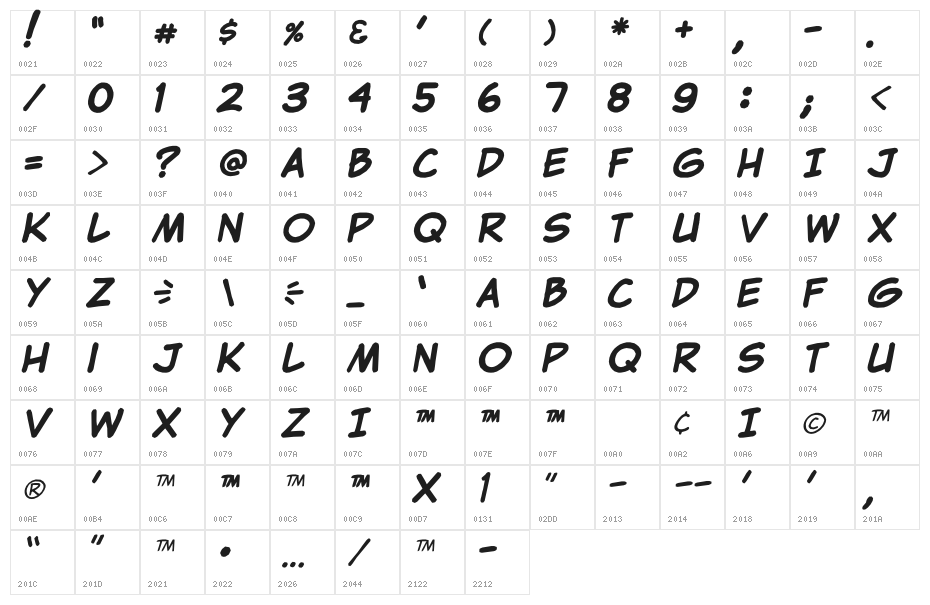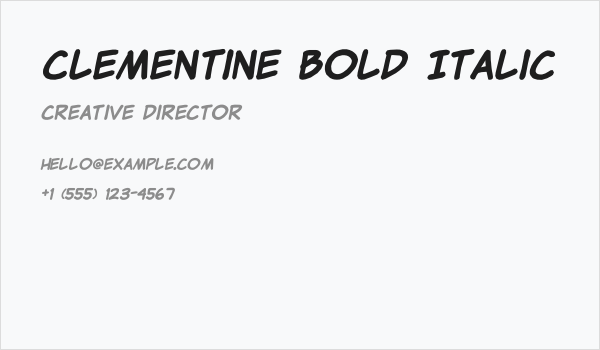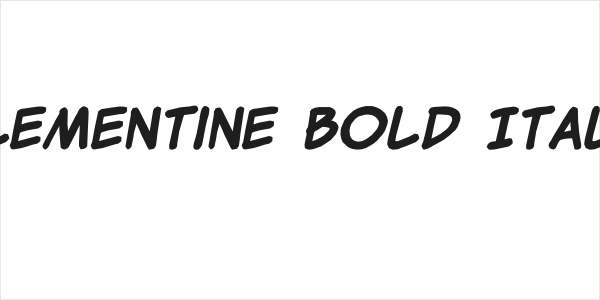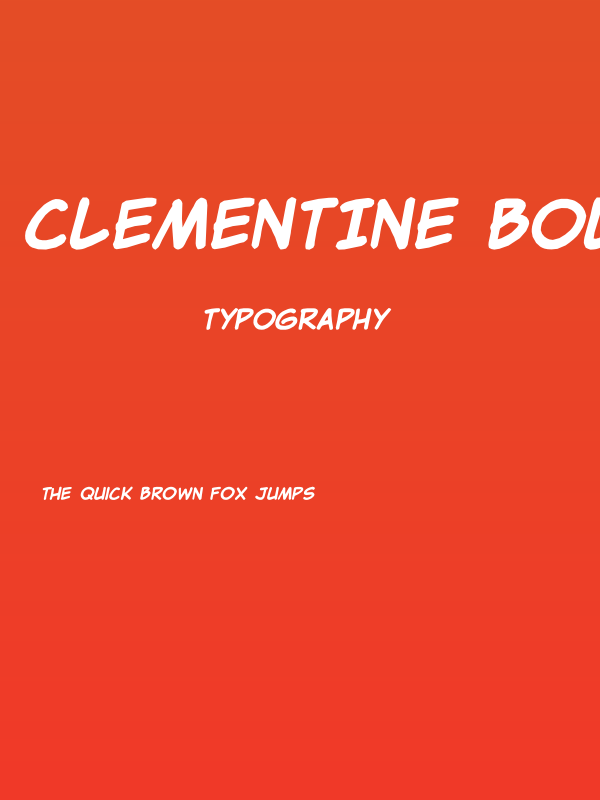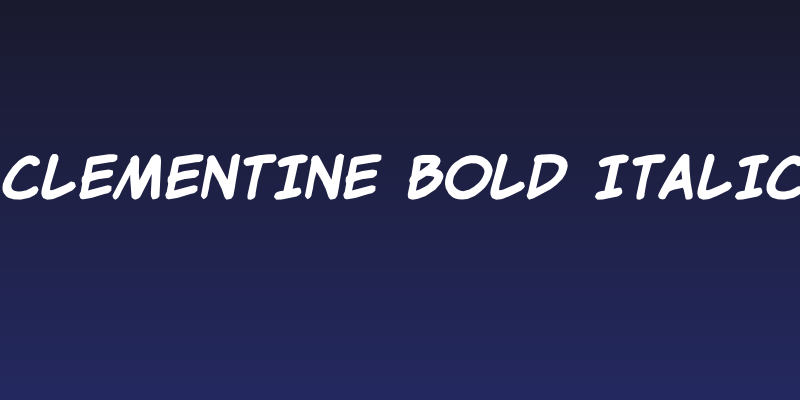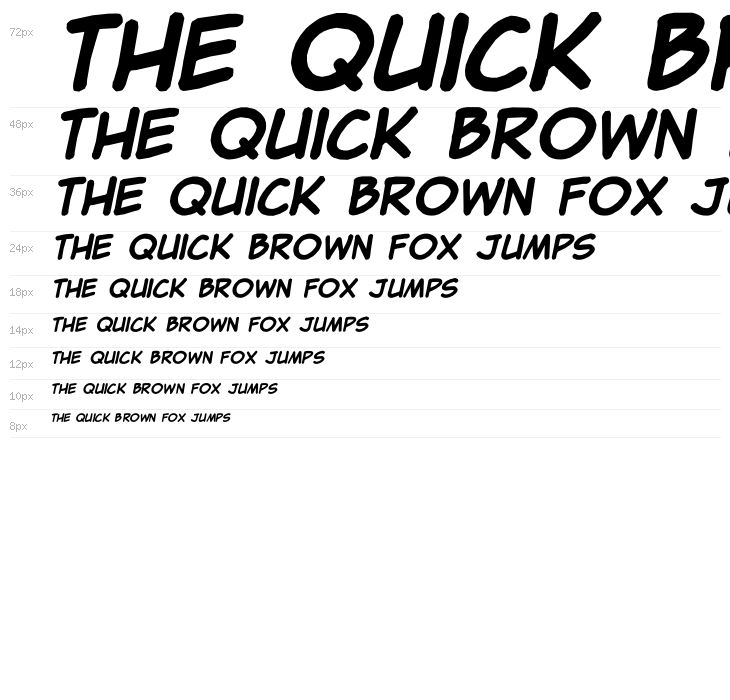
Clementine Bold Italic Font
Clementine Bold Italic Description
This font features a bold and italic style, characterized by its dynamic and energetic appearance. The letters are slightly slanted, adding a sense of movement and fluidity. The strokes are thick and consistent, providing a strong visual impact. The characters are well-spaced, ensuring readability while maintaining a cohesive look. The font includes a full set of uppercase and lowercase letters, numbers, and a variety of special characters, making it versatile for different design needs. Its boldness and slant give it a modern and playful feel, suitable for projects that require a touch of personality and flair.
| Proposed Projects | Ideal for branding, headlines, posters, and any design that requires a bold statement. |